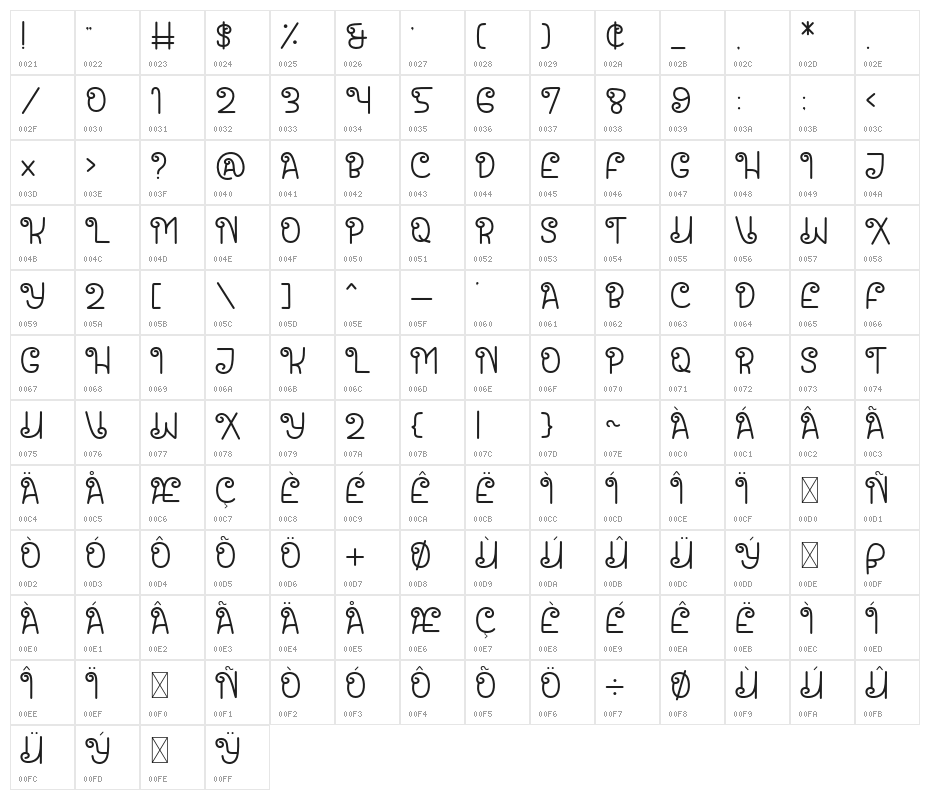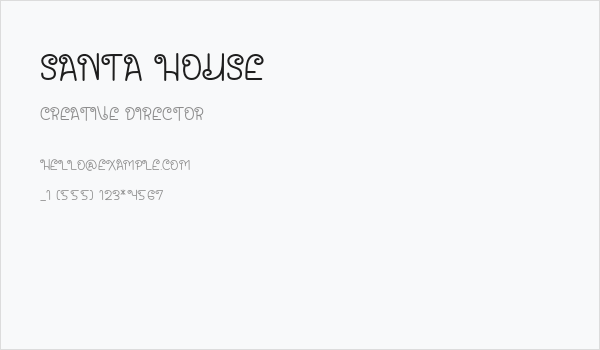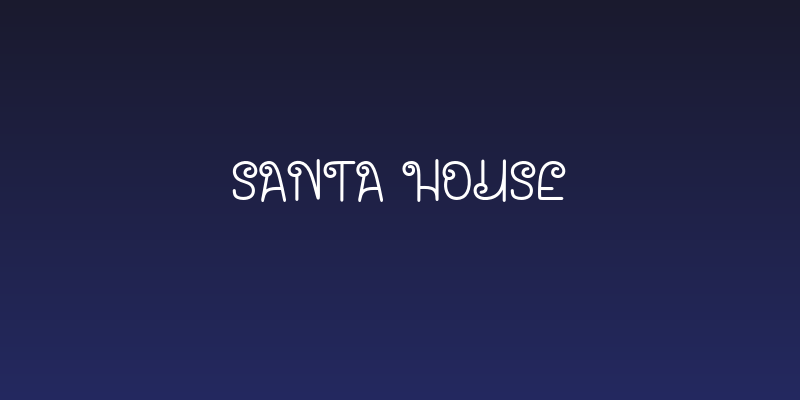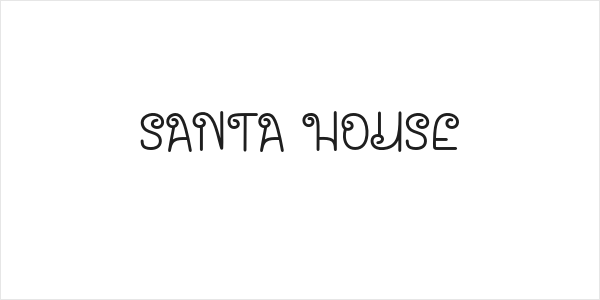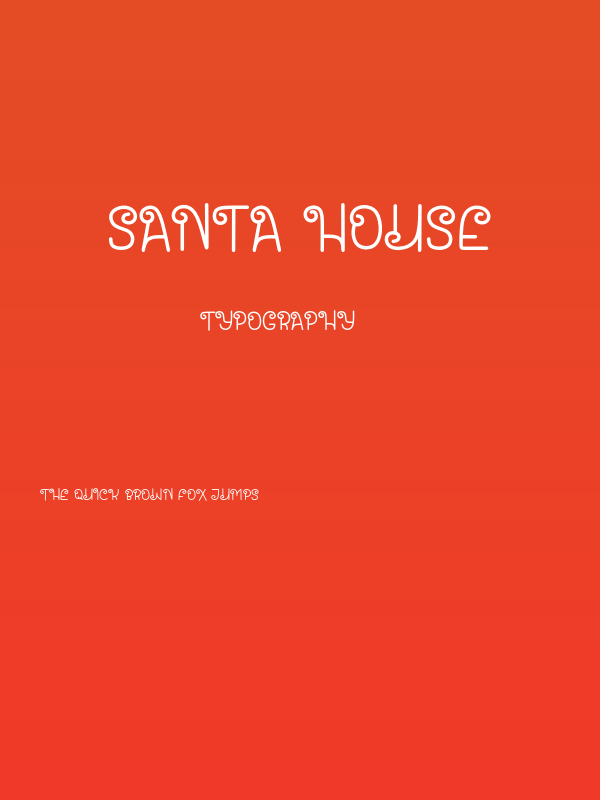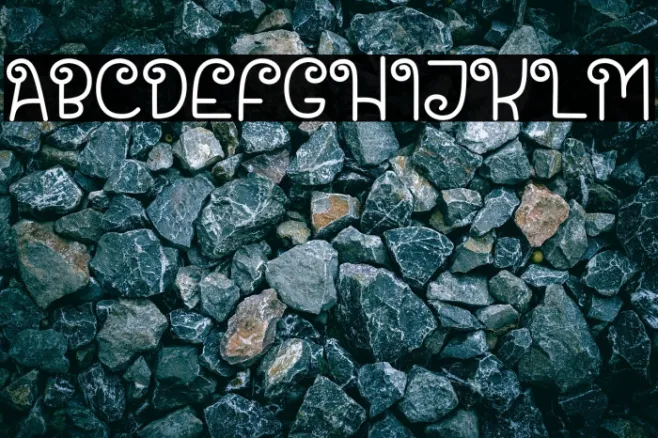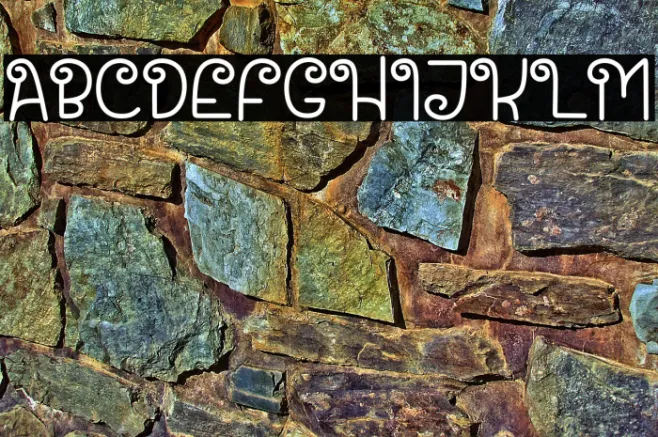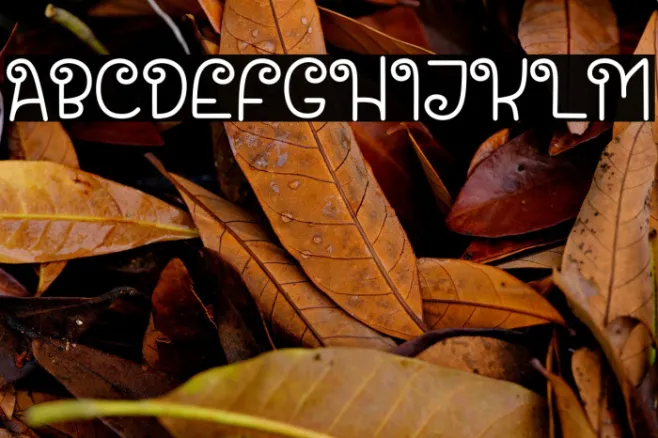
Santa House Font
Santa House Description
This font features a whimsical and playful design, characterized by its unique curly embellishments at the ends of each letter. The strokes are consistent in thickness, providing a uniform appearance across all characters. The uppercase and lowercase letters maintain a cohesive style, with the lowercase letters mirroring the playful loops of the uppercase. Numbers and special characters are designed to match the overall aesthetic, making this font suitable for creative and festive projects. Its decorative nature makes it stand out, capturing attention with its charming and fun style.
| Proposed Projects | Ideal for holiday cards, children's book covers, playful branding, and festive invitations. |